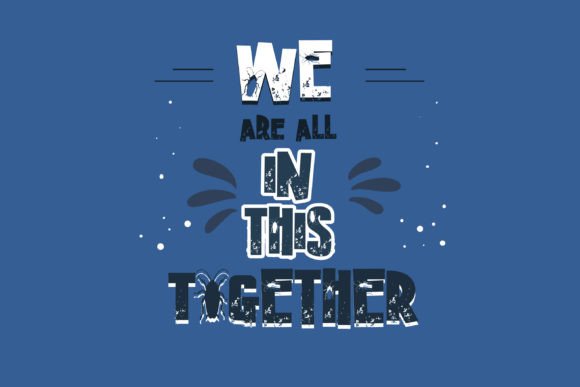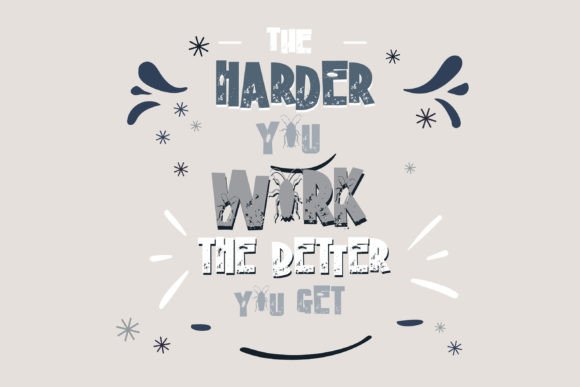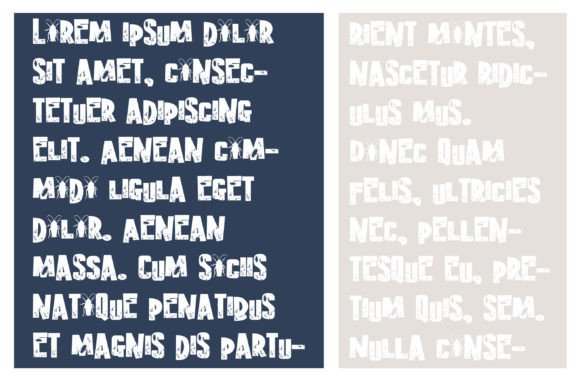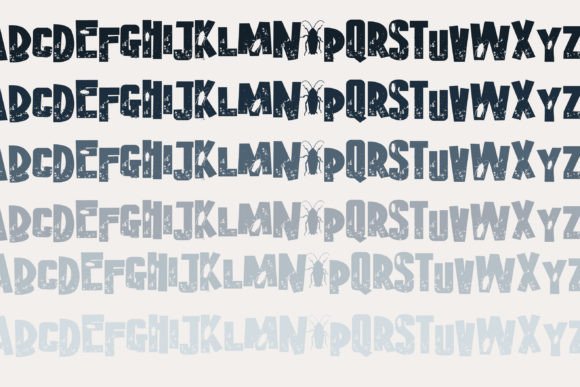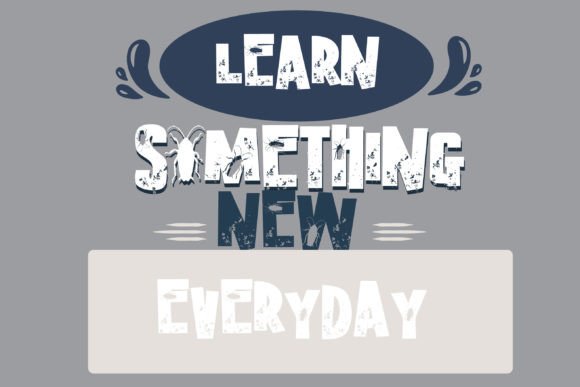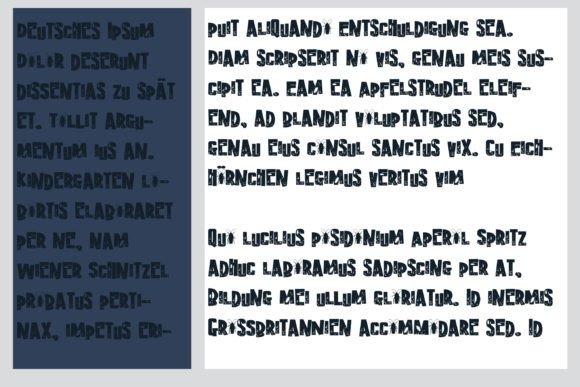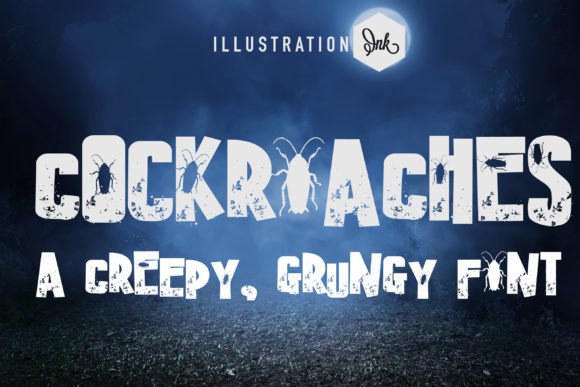
Cockroaches Font: A Grungy Sans Serif for Designers and Crafters
Are you tired of using the same old fonts for your design projects? Look no further than the Cockroaches Font, a unique and eye-catching grungy sans serif that’s loaded with, you guessed it, cockroaches throughout. This hand-crafted font is perfect for designers and crafters who want to add a touch of edginess and personality to their work.
A hand-crafted font, also known as a handwritten font, is a typeface that is designed to look like it was written by hand. This style of font is often used for invitations, greeting cards, and other items where a personal touch is desired. Handwritten fonts can be either formal or informal, and they can be used for a variety of purposes, from digital designs to print materials.
Characteristics of Hand-Crafted Fonts
Hand-crafted fonts like Cockroaches Font have several distinct characteristics that set them apart from other types of fonts. Some of these characteristics include:
- Unique letterforms: Hand-crafted fonts often feature unique and irregular letterforms that give them a personal and human touch.
- Variations in line width: Handwritten fonts often have variations in line width, which gives them a more organic and hand-crafted feel.
- Emotional connection: Hand-crafted fonts can evoke an emotional connection with the reader, as they often convey a sense of personality and authenticity.
Why Use a Hand-Crafted Font like Cockroaches Font?
There are many reasons why designers and crafters might choose to use a hand-crafted font like Cockroaches Font. Some of these reasons include:
- Add a personal touch: Hand-crafted fonts can add a personal touch to your designs, making them more relatable and engaging.
- Stand out from the crowd: Using a unique font like Cockroaches Font can help your designs stand out from the crowd and grab attention.
- Create a mood or atmosphere: Hand-crafted fonts can be used to create a specific mood or atmosphere in your designs, from playful and whimsical to serious and elegant.
Using Cockroaches Font in Your Designs
Cockroaches Font is a versatile font that can be used in a variety of design projects, from digital designs to print materials. Some ideas for using Cockroaches Font include:
- Invitations and greeting cards: Cockroaches Font is perfect for creating unique and eye-catching invitations and greeting cards.
- Posters and flyers: Use Cockroaches Font to add a touch of edginess and personality to your posters and flyers.
- Digital designs: Cockroaches Font can be used in digital designs, such as social media graphics, blog posts, and website headers.
Tips for Using Hand-Crafted Fonts
Here are a few tips for using hand-crafted fonts like Cockroaches Font:
- Use them sparingly: Hand-crafted fonts can be attention-grabbing, so use them sparingly to avoid overwhelming the reader.
- Pair them with other fonts: Pair Cockroaches Font with other fonts to create visual interest and add depth to your designs.
- Experiment with different colors and textures: Hand-crafted fonts can be paired with a variety of colors and textures to add visual interest and create a unique look.
Cockroaches Font is a unique and eye-catching grungy sans serif that’s perfect for designers and crafters who want to add a touch of edginess and personality to their work. With its hand-crafted look and feel, Cockroaches Font is sure to grab attention and make your designs stand out from the crowd. Whether you’re creating invitations, posters, or digital designs, Cockroaches Font is a versatile font that can be used in a variety of projects.